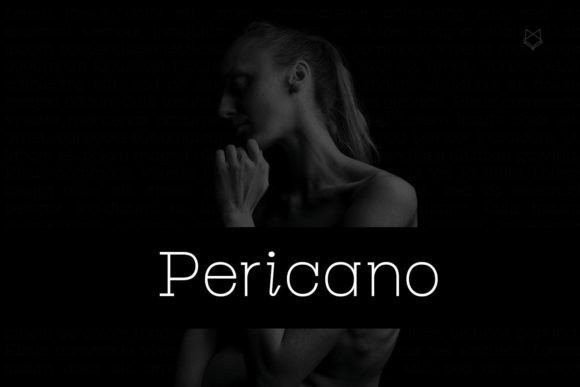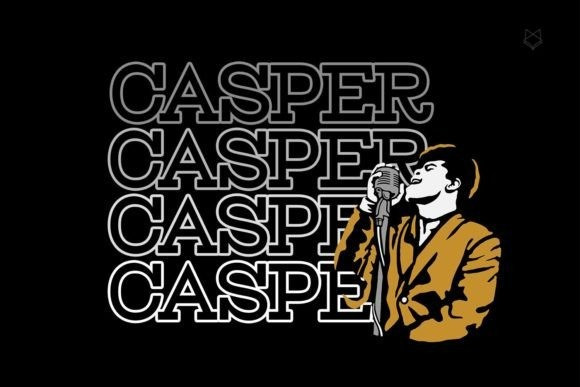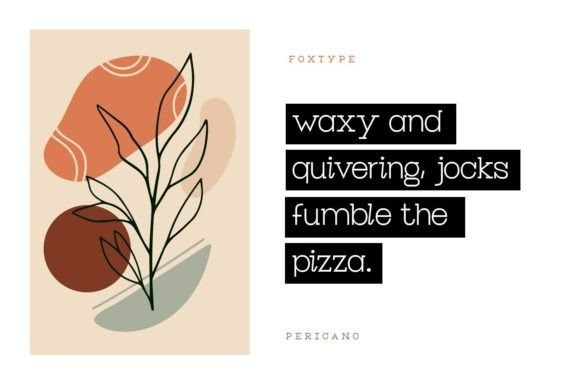
Pericano Font
Pericano is a natural and fresh serif font. It has a clean, thin, and smooth vibe and it will be a hit for any design that you want to add it to.